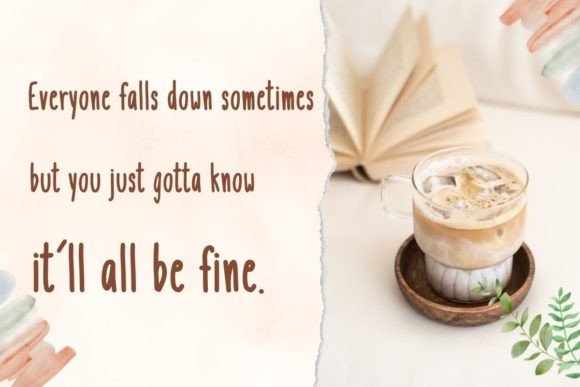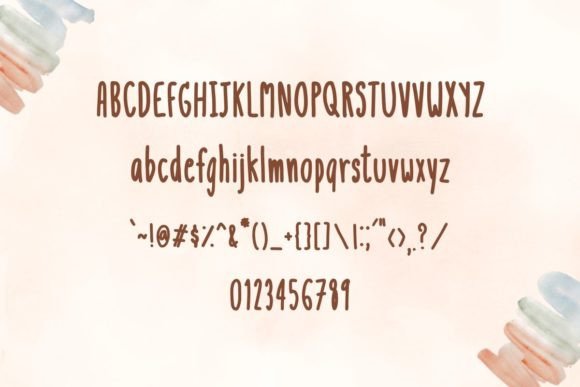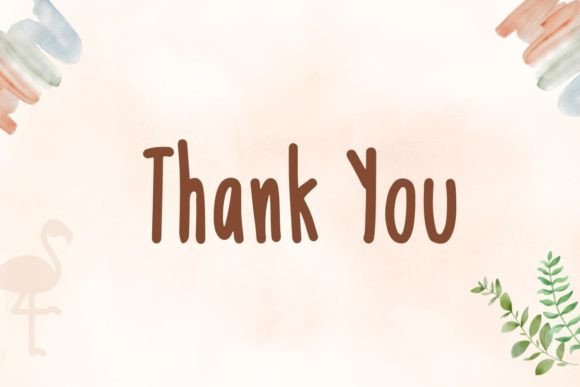
About Flamingo Font
“Flamingo” is a tall and skinny handwritten font that brings a unique and distinctive look to your creative projects. Its slender letterforms make it suitable for a variety of applications, including SVG designs, mug designs, pottery, shirts, hats, tote bags, card making, wall art, interior prints, and much more. By incorporating this lovely font into your work, you can breathe life into your creative ideas.
The charm of “Flamingo” lies in its tall and skinny lettering style. Its unique and slender characters create a visually captivating and modern look, making it an ideal choice for projects that aim to convey a sense of elegance and style.
One of the standout qualities of “Flamingo” is its versatility. Whether you’re using it to design stylish apparel, create eye-catching mugs, or craft personalized cards, this font seamlessly integrates into your creative vision.
By adding “Flamingo” to your toolkit, you can bring a touch of modernity and sophistication to your projects. Whether you’re working on personal or professional endeavors, this font offers a fresh and contemporary style that resonates with a diverse audience.
In summary, “Flamingo” is more than just a font; it’s a versatile and stylish creative tool that can enhance your designs across various applications. Whether you’re a professional designer or an enthusiast passionate about crafting and design, “Flamingo” is here to elevate your creative ideas and bring a modern and slender aesthetic to your work. Embrace the uniqueness of “Flamingo,” and watch your creativity flourish with elegance and style.